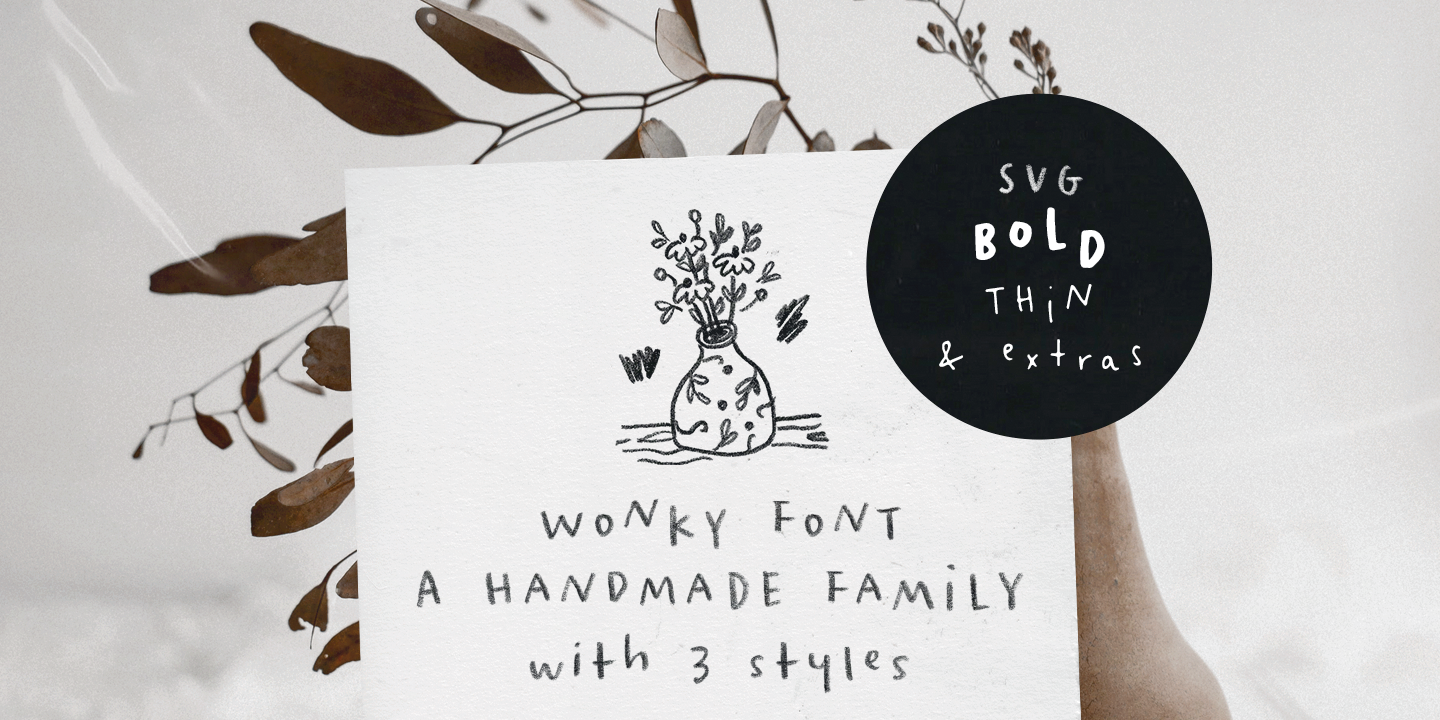
Wonky Font is perfect for children's book illustrations, playful brand identity, quirky advertising campaigns, fun product packaging, creative greeting cards, whimsical social media graphics, comedy show promotions, toy company branding, entertainment venue signage, and unconventional marketing materials. This delightfully irregular typeface works exceptionally well for creative agencies, children's brands, entertainment companies, and innovative businesses that want to communicate playfulness, creativity, and approachable fun in their visual communications.
What makes Wonky Font exciting is its charming ability to break typographic rules while maintaining perfect readability and infectious personality. The deliberately irregular letterforms feature playful angles, unexpected curves, and delightfully imperfect proportions that create an immediate sense of joy and creative freedom. Each character has been carefully designed with intentional quirkiness and charming irregularity that ensures excellent legibility while delivering maximum personality. The font's wonderfully wonky character makes it ideal for brands that want to communicate creativity, approachability, and the courage to be different in their marketing materials.
The Wonky Font family includes multiple playful variations featuring Regular, Bold, Light, and Extra Wonky styles with additional decorative elements and whimsical alternates. Each style maintains the font's characteristic playfulness while providing different levels of quirkiness and visual energy. The complete family ensures brand consistency across all materials while giving designers the flexibility to create engaging layouts that capture the joyful spirit and creative freedom of unconventional design aesthetics.
Professional designers and creative directors will appreciate how Wonky Font Free Download transforms ordinary projects into memorable creative experiences. Whether you're designing for children's products, entertainment brands, or innovative creative campaigns, this font delivers exceptional performance in creating distinctive brand personalities. The playful character shapes and quirky styling make it particularly effective for packaging, advertising, and digital content where standing out from conventional design matters most.
The versatility of Wonky Font extends across numerous creative and entertainment design applications. It works beautifully in children's publishing, toy branding, entertainment marketing, creative agency identity, and unconventional advertising campaigns. The font's joyful presence makes it ideal for brands targeting families, creative professionals, and audiences appreciating humor and creative expression.
For designers seeking a font that celebrates creative imperfection with charming appeal, Wonky Font represents the perfect choice. Its delightfully irregular appearance suits creative brands while maintaining excellent readability across all media. The font's playful baseline and quirky proportions create engaging visual hierarchies that invite interaction and communicate creative confidence.